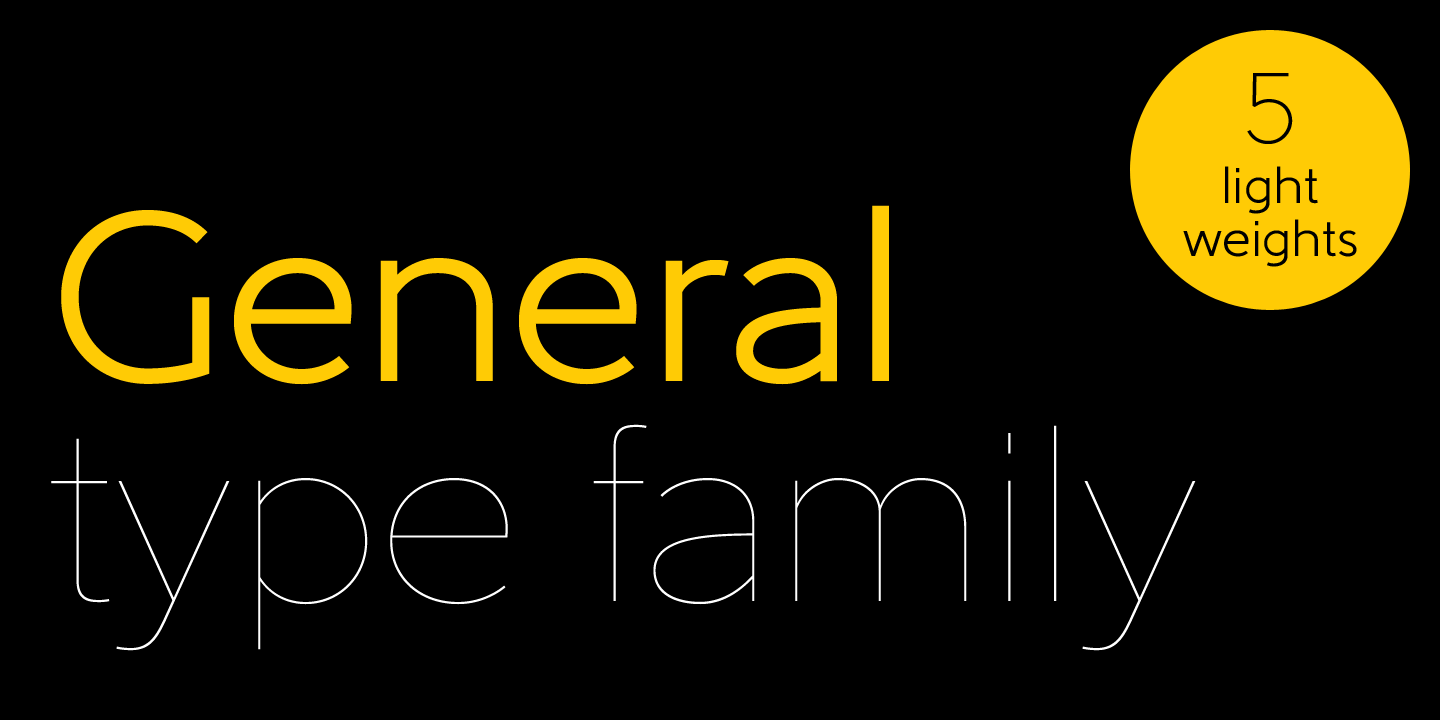
The General Font is perfect for various design applications including universal corporate branding, multi-purpose business logos, general merchandise packaging, versatile document templates, comprehensive presentation designs, all-purpose signage systems, flexible marketing materials, and adaptable communication graphics. This versatile typeface works exceptionally well for diverse brands and projects requiring reliable functionality with broad universal appeal.
What makes General Font exciting is its versatile and reliable character that instantly adapts to any design context while maintaining consistent quality and professional appearance across all applications. The font features balanced letterforms with universal aesthetics and adaptable qualities that evoke feelings of dependability, professionalism, and timeless versatility. Its general-purpose styling and universal appearance make it perfect for brands that need comprehensive design solutions and want to connect with diverse audiences across multiple communication channels and contexts.
The General Font family includes multiple weights and styles, offering designers flexibility for diverse universal applications. The family typically consists of regular, bold, light, and condensed variations, along with versatile decorative elements and adaptable ornaments, providing comprehensive coverage for projects that need both functionality and visual consistency across different general-purpose contexts.
Whether you're working on corporate identity systems, multi-platform communications, or comprehensive branding campaigns, General Font Free Download delivers the reliable quality and visual versatility that modern universal designers require. The font's general-purpose design combined with its excellent readability makes it an essential tool for creating compelling visual communications that embody professional consistency and bring the dependable spirit of universal design excellence to life.